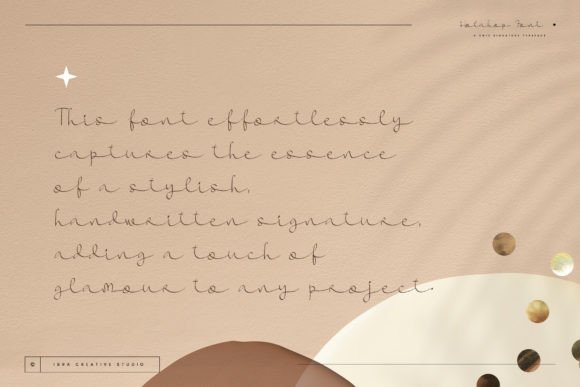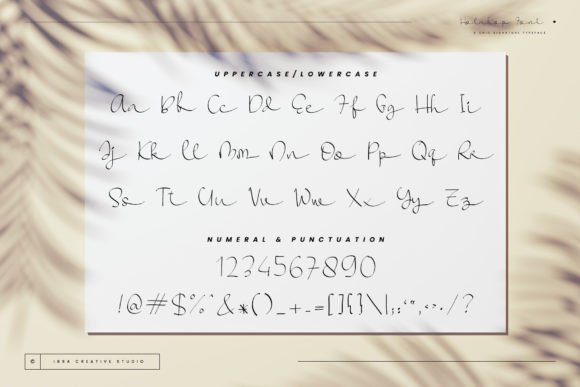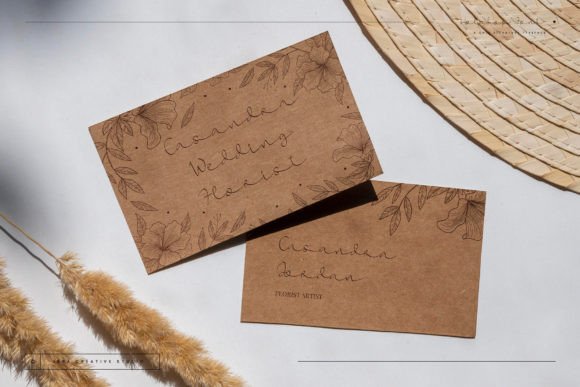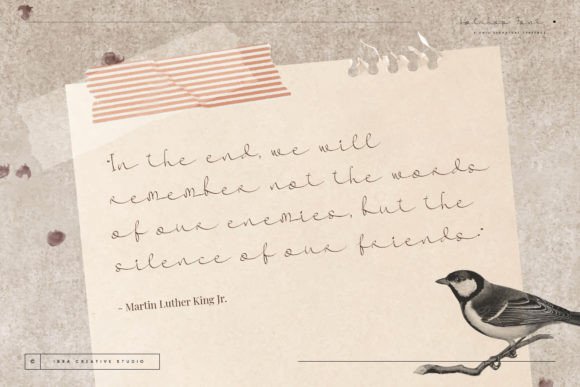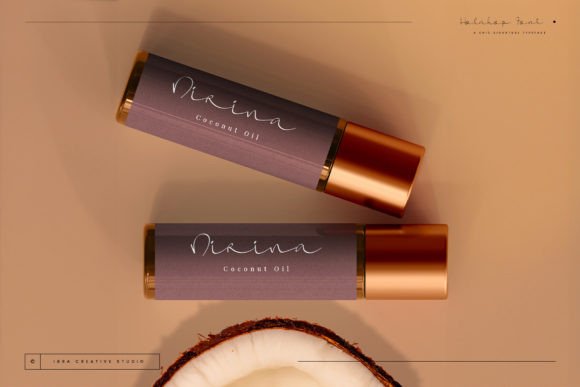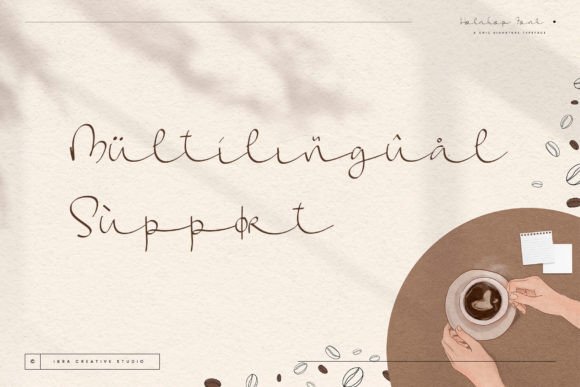
Introduction to Holahop Font
Holahop, a chic signature typeface, epitomizes elegance and sophistication with its gracefully flowing lines and distinctive design.
This font effortlessly captures the essence of a stylish, handwritten signature, adding a touch of glamour to any project Holahop’s cursive strokes and carefully crafted letterforms exude a sense of refined simplicity, making it a versatile choice for branding, invitations, and upscale designs.